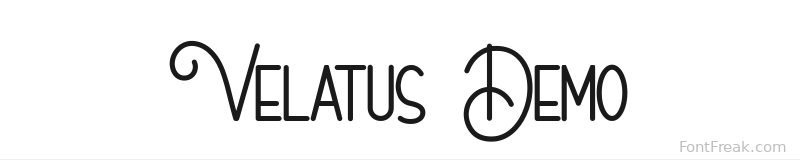
Velatus Demo
The Velatus Demo font by Noah Type is an elegant and artistic display typeface that showcases a unique flair, perfect for various design projects. As a decorative font, it features graceful curves and whimsical elements that set it apart from more traditional typefaces. The stroke weight is moderate, allowing for a pleasing balance between boldness and readability, while the contrast between thick and thin lines adds a dynamic quality to the characters. The spacing is thoughtfully designed to maintain clarity, making it an excellent choice for eye-catching headlines or focal points in any layout.
This font is particularly well-suited for creative applications such as wedding invitations, where its romantic aesthetic can elevate the overall design. Additionally, it works wonderfully for movie posters, adding a touch of sophistication that draws the viewer's attention. Restaurant menus can also benefit from the Velatus Demo font, as its unique style can help convey a brand's personality and theme, making the dining experience feel more special. Content creators and graphic designers will find this font ideal for social media graphics, ensuring their posts stand out in crowded feeds.